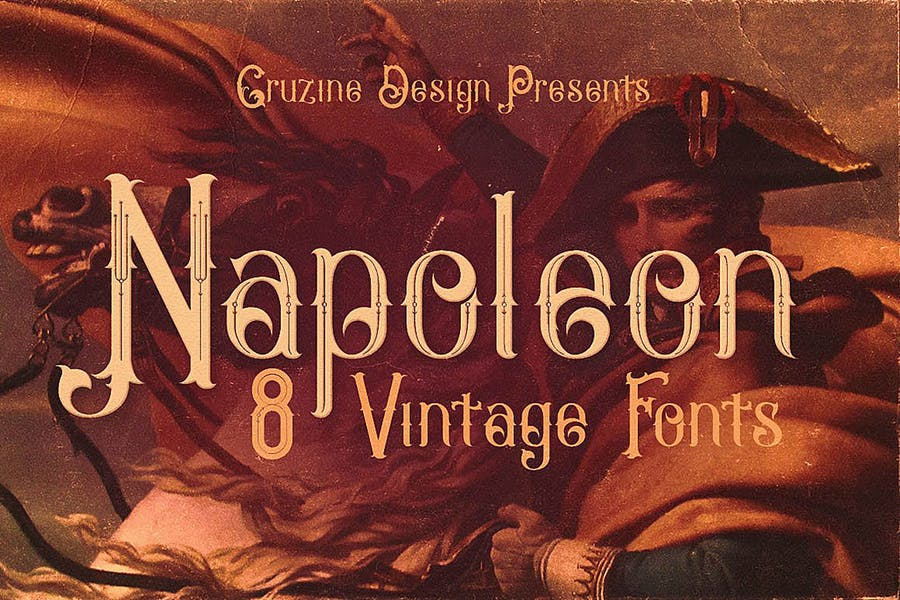
Napoleon Vintage Typeface
Napoleon Vintage Typeface is perfect for imperial luxury brands, distinguished cognac distilleries, prestigious military academies, heritage hotel communications, noble estate wineries, classical history museums, regal event invitations, sovereign jewelry packaging, aristocratic men's fashion, and distinguished cultural institutions.
Napoleon Vintage Typeface creates excitement because it embodies the imperial grandeur and commanding presence of historic leadership with its majestic letterforms and empire-inspired character design. The font's authoritative proportions and imperial aesthetic instantly convey sovereign power and aristocratic distinction, making any brand appear commanding and authentically regal. Its carefully crafted imperial details and napoleonic character create an immediate sense of historic authority that captivates audiences seeking prestigious experiences, imperial quality, and products that celebrate the transformative power of legendary leadership and aristocratic excellence.
The Napoleon Vintage Typeface family includes multiple weights and styles: Regular, Bold, Light, Medium, Italic, Condensed, Extended, Imperial, Sovereign, and Regal versions. Each variant maintains the font's signature napoleonic character while offering different levels of imperial styling and aristocratic authenticity suitable for various luxury and heritage applications.